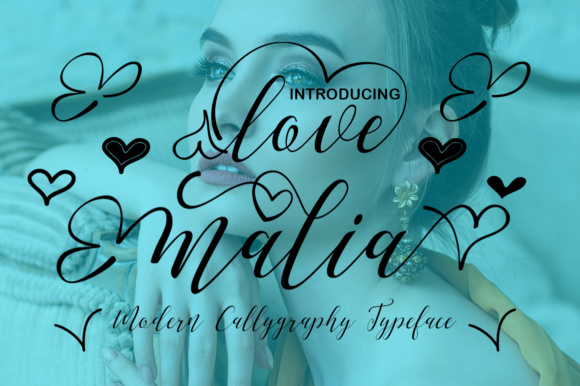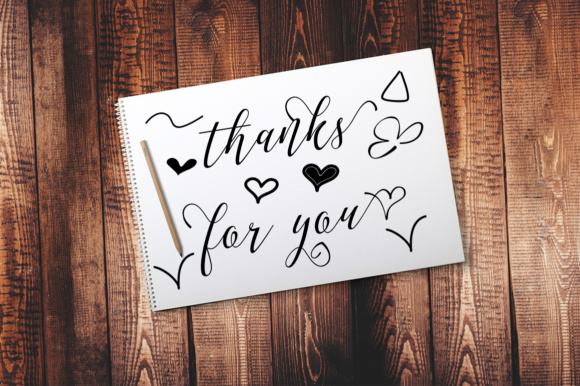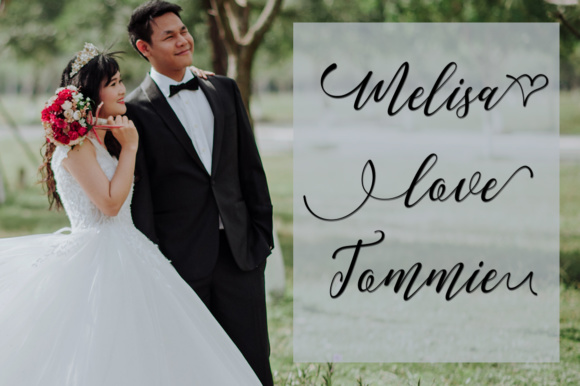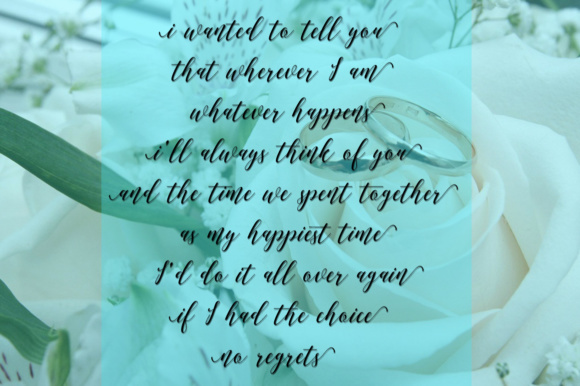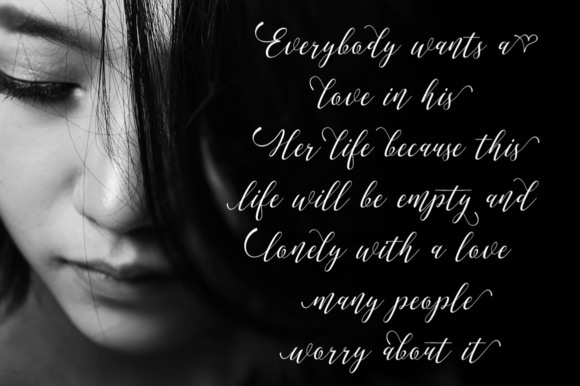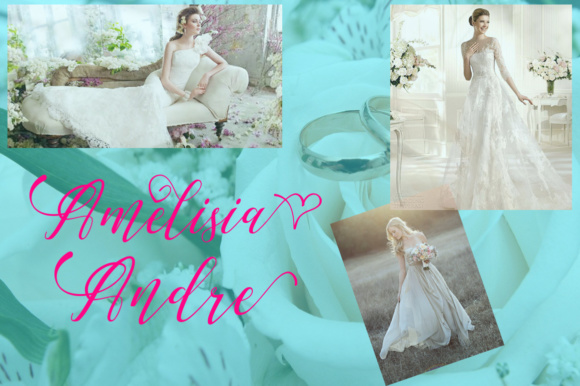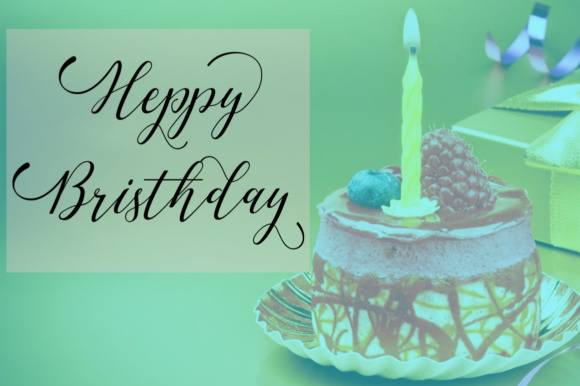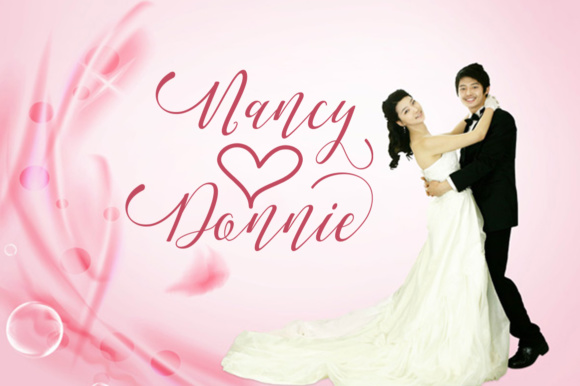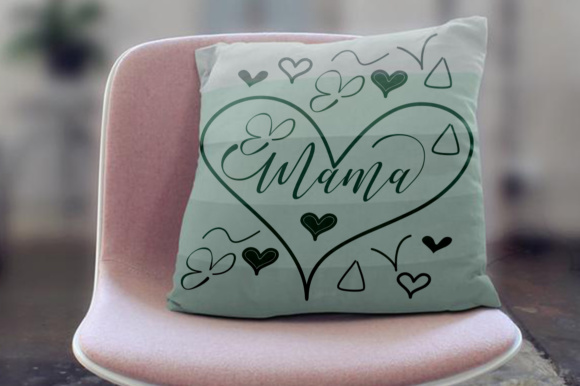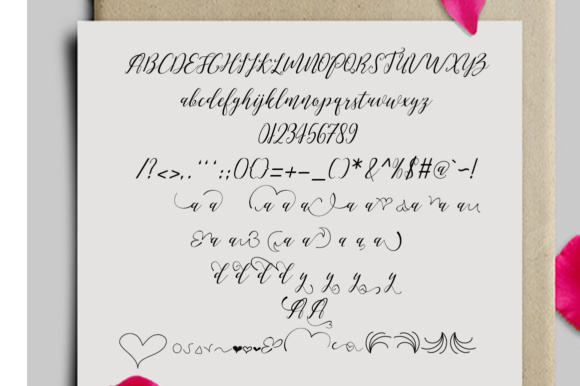
Love Malia Font
About Love Malia Font
Love Malia is a stunning, swashy calligraphy font that can add a tons of style to your work. This script comes with beautiful decorative characters and tons of stylistic alternates so you can create typographic work with any type of look!